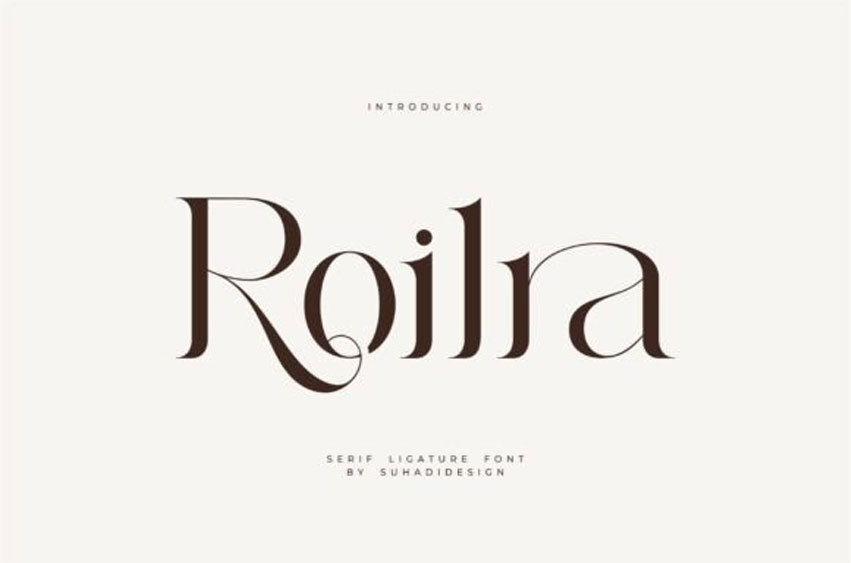
Roilra Font is a sophisticated serif typeface distinguished by its elegant ligature design and high-contrast strokes that seamlessly blend modern refinement with timeless sophistication. Each letterform is thoughtfully crafted with sweeping curves, slender lines, and stylish connections, giving text a graceful yet contemporary appearance.
Perfectly versatile, Roilra adapts beautifully to branding, editorial layouts, invitations, and luxury packaging, offering a refined tone that resonates with elegance and creativity. Its balance of readability and artistic flair makes it a must-have for designers seeking a font that exudes style and uniqueness.